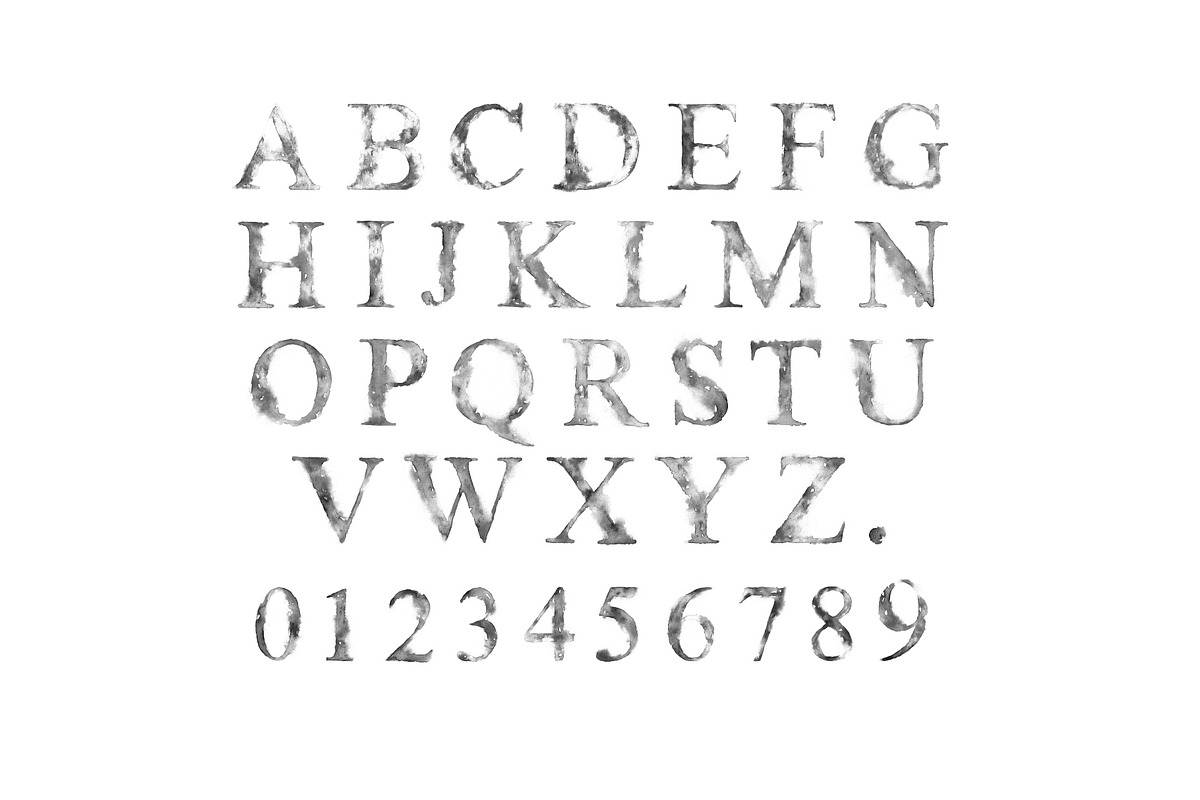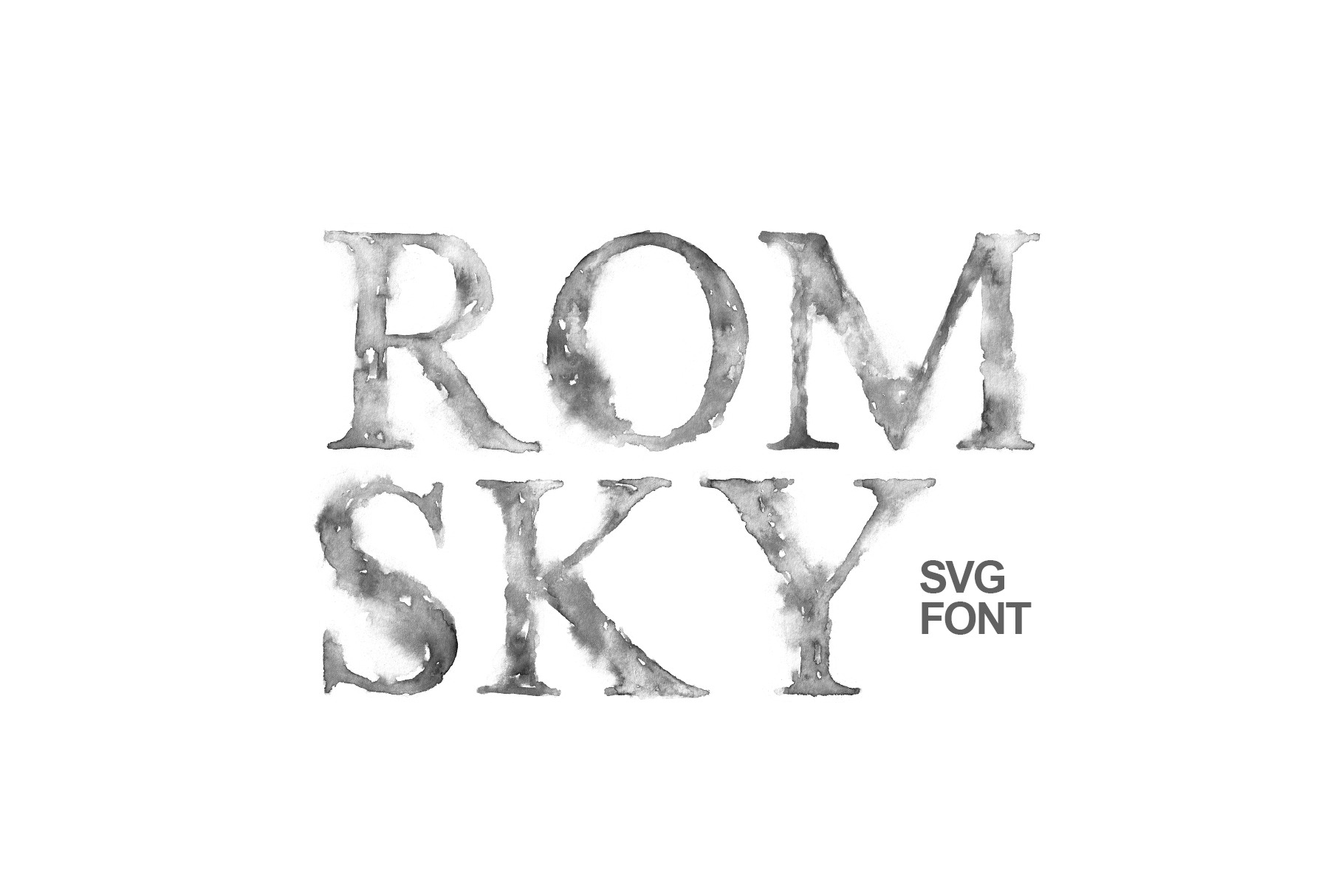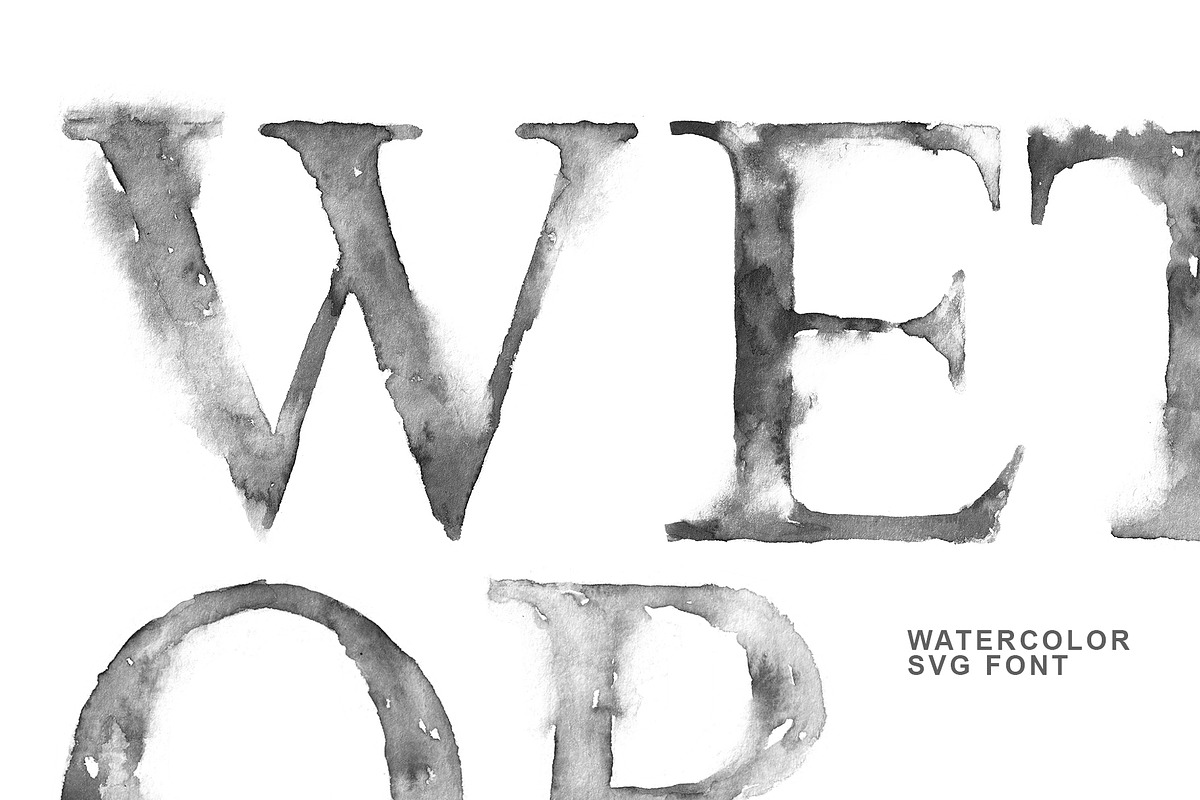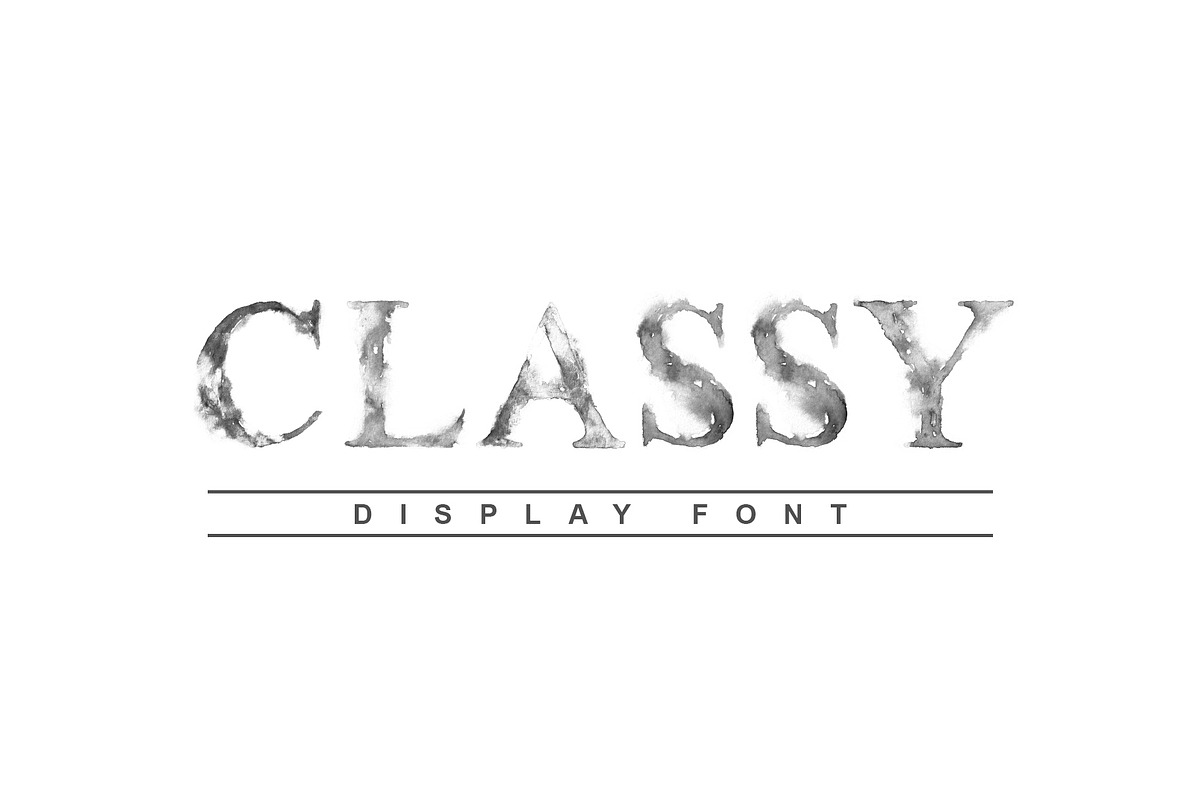
Romsky Watercolor - SVG Font
A handmade font to beautify your design is here. We’re proudly presenting the Romsky Watercolor - SVG Font. Yes, it’s a new type of OpenType format, the SVG font. This font is made carefully and thoroughly by manual drawing. It has the hand touch impression and is made as it is faded in some parts. It shows different transparencies in some parts which make it look more unique.
It’s best to be used as a display font as it’s pretty, striking, and unique in a different way. It can be used as a logotype, titles, or whatever that wants to be the center of attention. Moreover, if you use it for posters, advertising, flyers, branding, and any other it would definitely make your project stands to be different and get much attention. You can create and explore with this font endlessly. Showcase your creative ideas by collaborating with this font. Your project would turn out to be unexpectedly amazing.